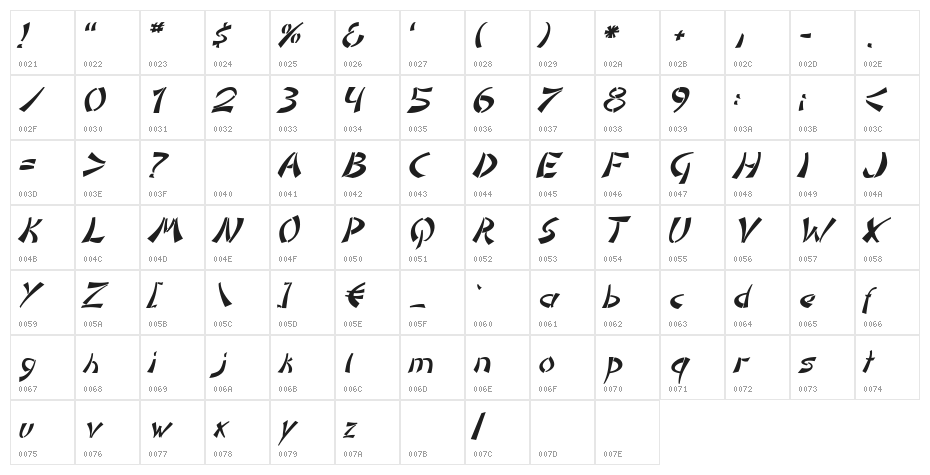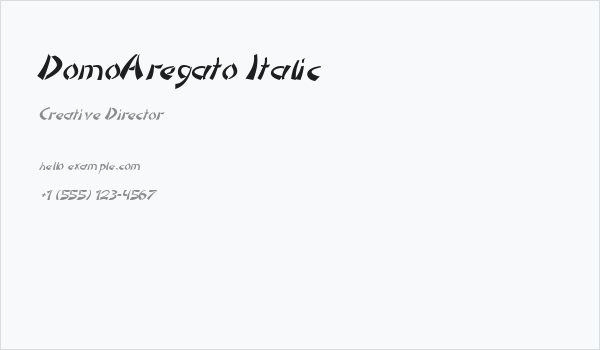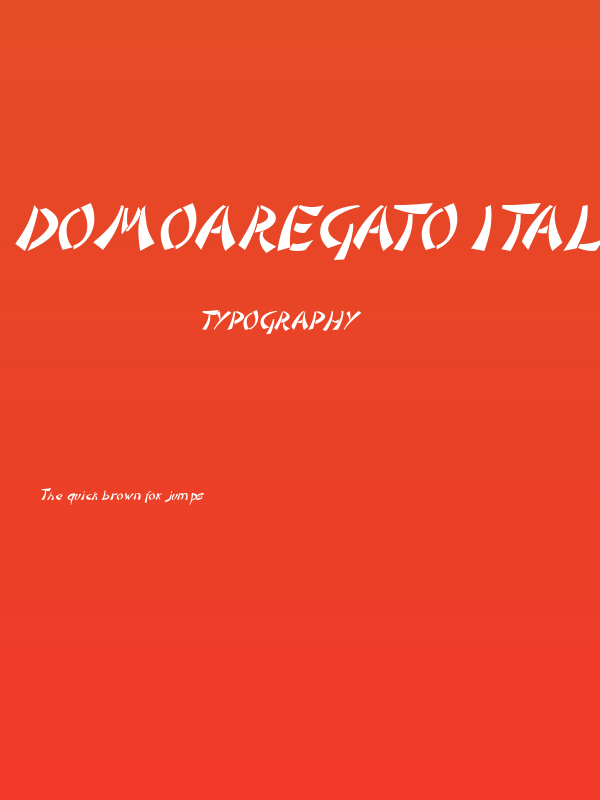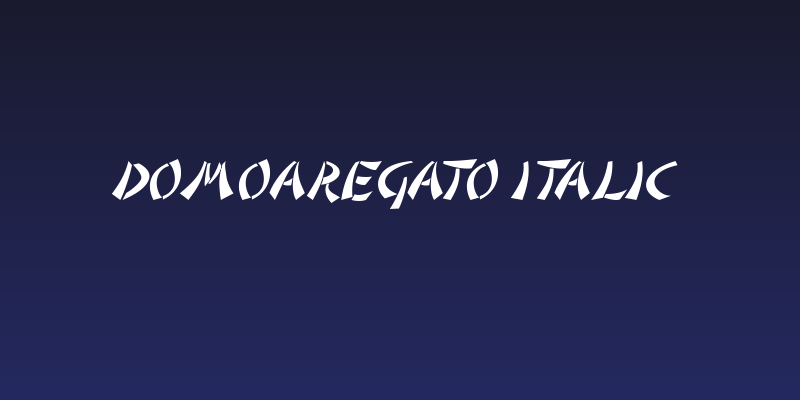
DomoAregato Italic Font
DomoAregato Italic Description
This font features a dynamic and energetic style with sharp, angular strokes that give it a sense of movement and flair. The italicized form enhances its fluidity, making it appear almost like a handwritten script, yet with a modern twist. The characters are bold and striking, with a high contrast between thick and thin lines, adding to its dramatic appearance. The uppercase letters are particularly distinctive, with unique shapes that stand out, while the lowercase letters maintain a consistent style. The numbers and special characters follow the same design principles, ensuring a cohesive look across all glyphs.
Proposed ProjectsIdeal for branding projects, dynamic posters, modern art designs, and any creative work that requires a bold statement.